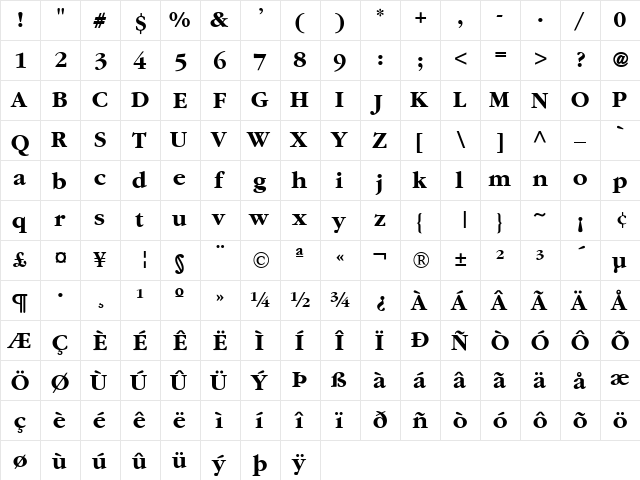
Gatineau Bold
Design Context for Gatineau Typeface
Gatineau offers clean, dependable letterforms without strong stylistic allegiance, making it a practical choice for designers who need flexibility. Its bold stroke weight gives it real presence on the page.